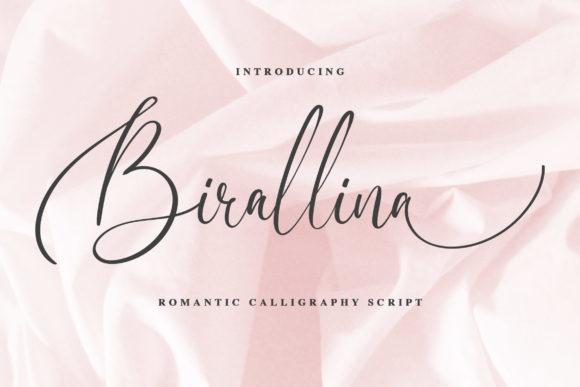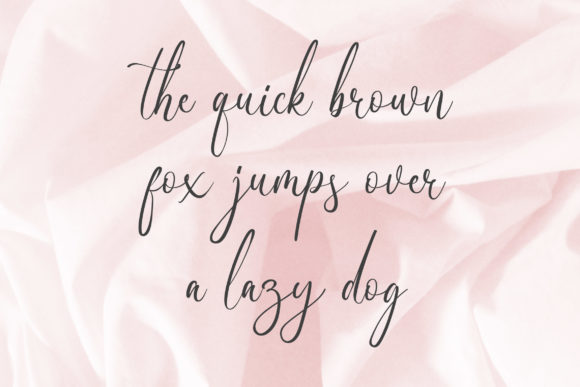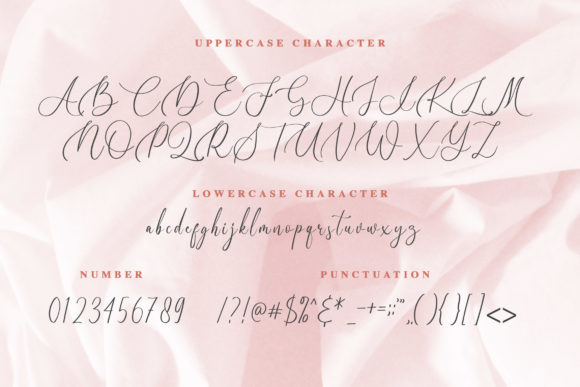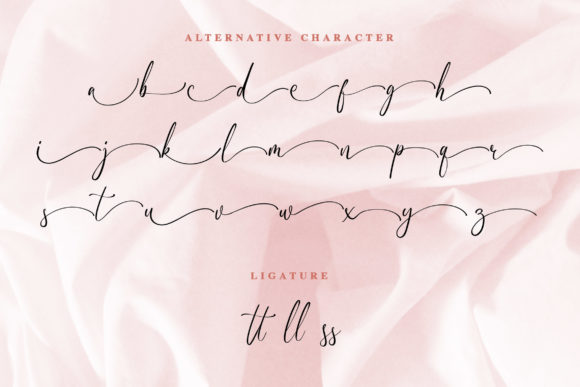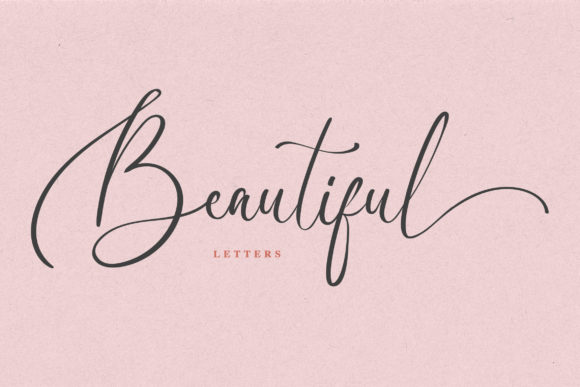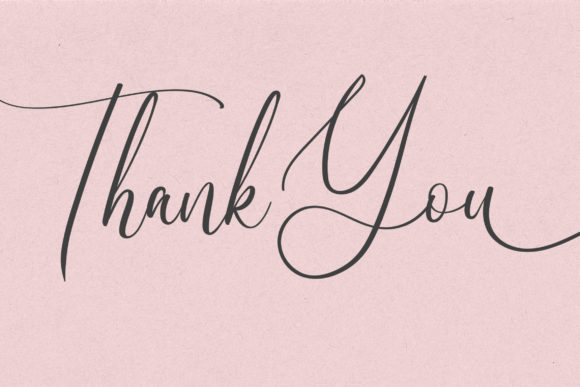
HomeScript FontsBirallina Font Script Fonts Birallina Font FacebookXPinterestWhatsApp Birallina Font Poster 2 Birallina Font Poster 3 Birallina Font Poster 4 Birallina Font Poster 5 Birallina Font Poster 6 About Birallina Font Birallina is a stunning handwritten font with a bold twist. It will turn any design project into a true standout. DOWNLOAD ON CREATIVE FABRICAThis font is sold and delivered by Creative Fabrica. Font Canyon may earn a commission if you buy through this link. People also explored Superscore Creative Handmade Font Axentav HSC Font Prospec Font Bolli Font Magilova Font Retroround Kr Font Seahawk Font Simple Handmade Font 322 0 TagsBirallina Font Previous articleBeauty Momsky FontNext articleAnggita Font LEAVE A REPLY Cancel reply Comment: Please enter your comment! Name:* Please enter your name here Email:* You have entered an incorrect email address! Please enter your email address here Website: Save my name, email, and website in this browser for the next time I comment. Personal Use Free Heart Memory Personal Use Free Read more about this font Historise Personal Use Free Read more about this font Pompom Personal Use Free Read more about this font Bakk Trieng Personal Use Free Read more about this font BLOG Transform Your Website: Elevate Your Typography with 7 Best Web Font Generators Are you ready to transform your website's typography from ordinary to extraordinary? Great! Today, we're diving into the world of web font generators, which... Modern Sans-Serif Fonts That Brands Love in 2025 Best Fonts for T-Shirt Design – Top 2025 Picks How to Cut Any Font on Cricut: Convert a Font to SVG (Free)